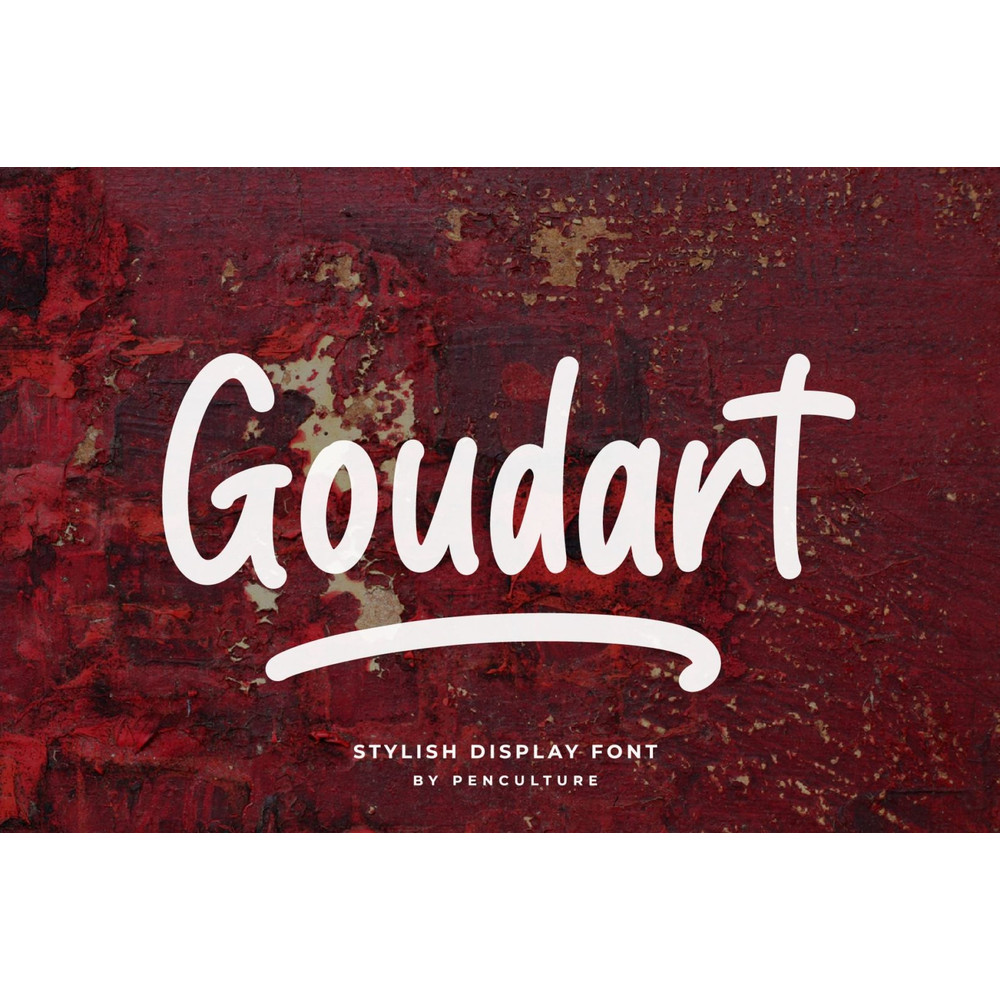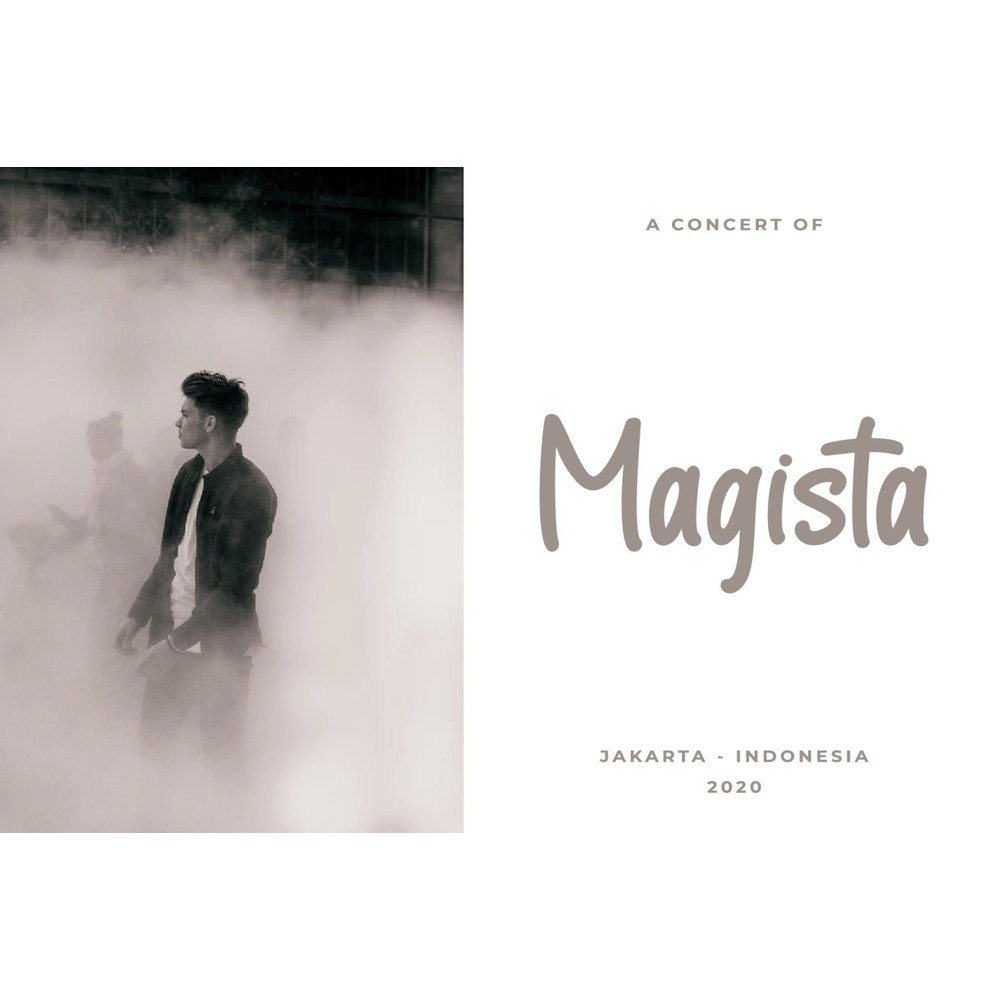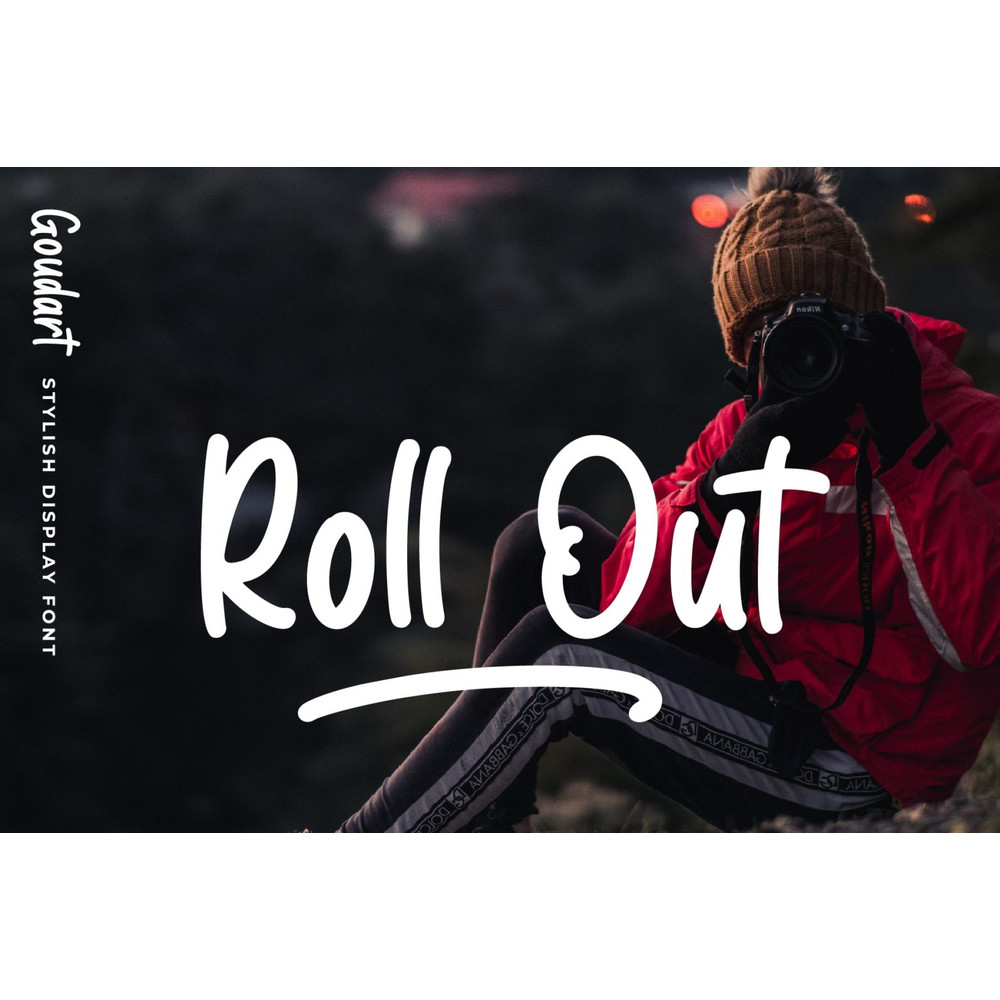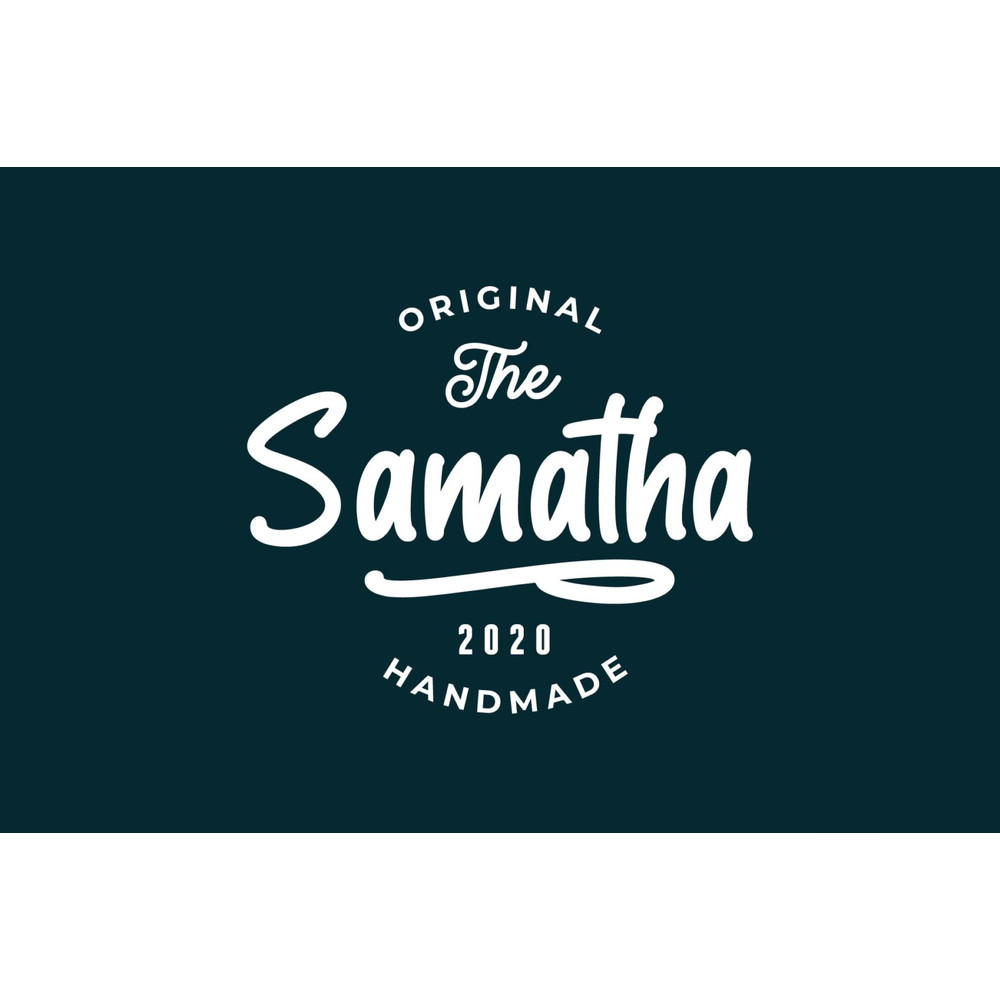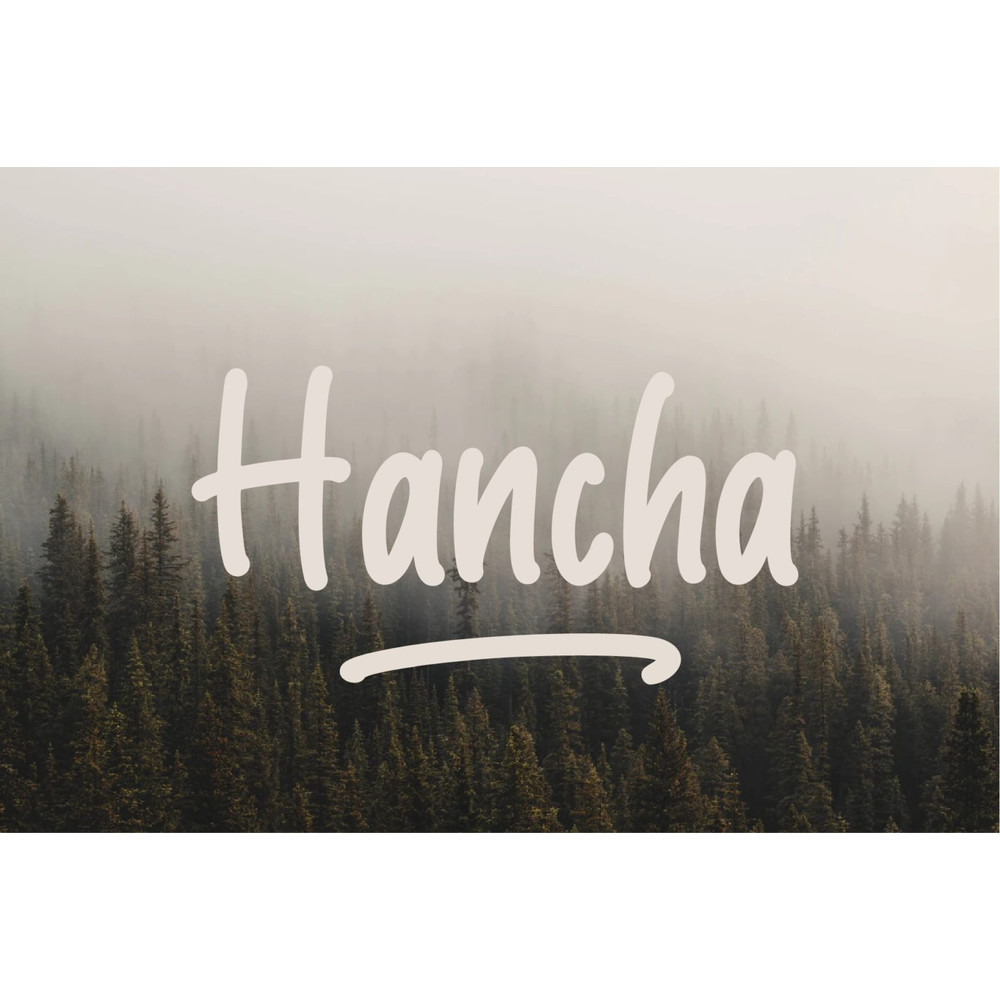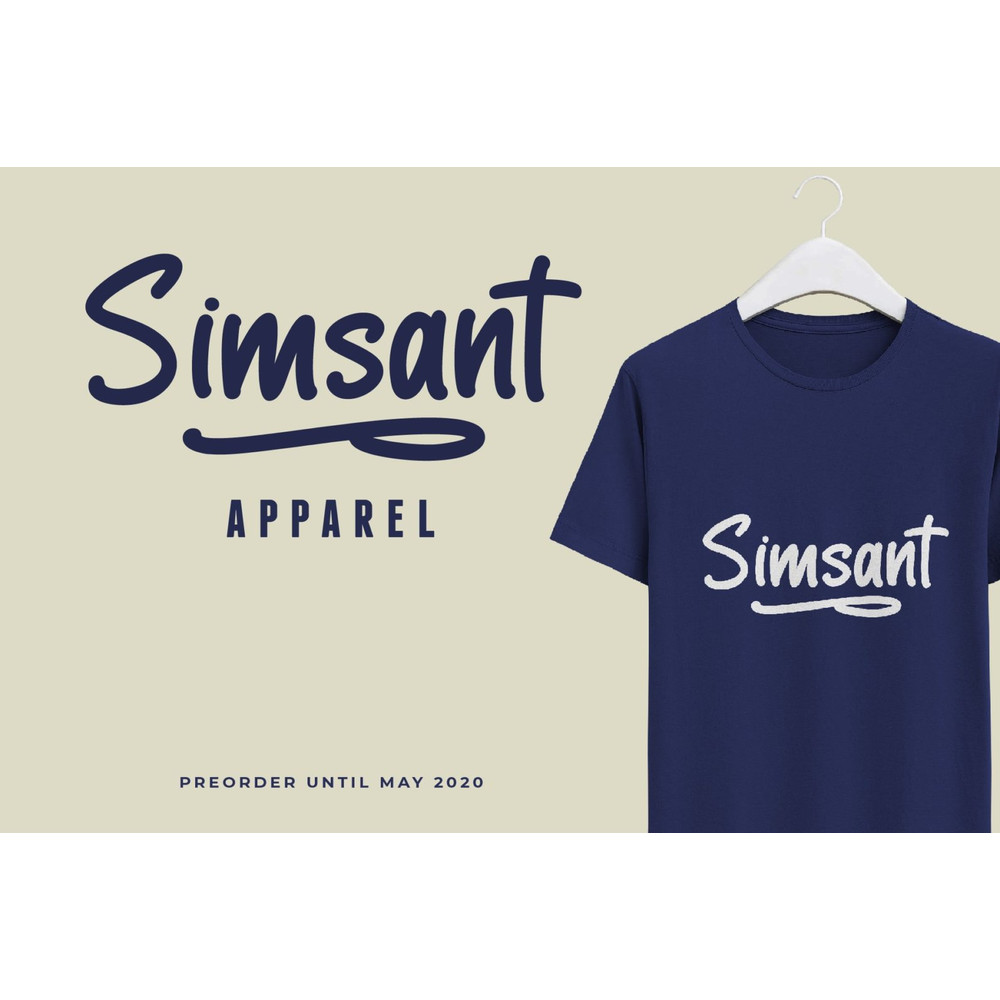
A stylish dispaly font with various interesting features. This font is perfect for for branding, poster, and many more.
– Uppercase and lowercase
– Number
– Punctuation
– Multilingual support
– Beautiful alternate